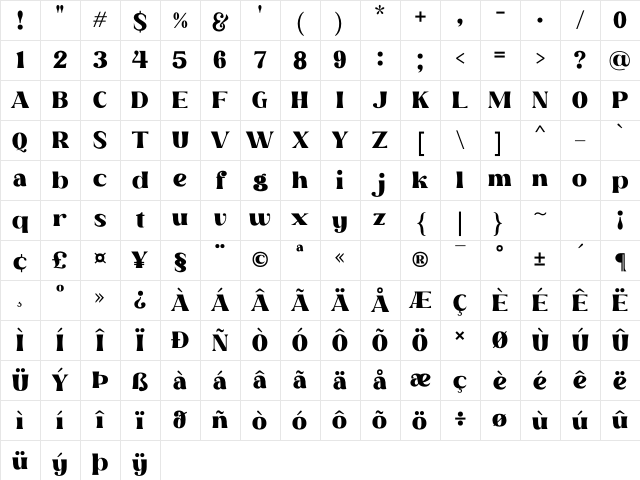
Beach Lombok Regular Free Font
Beach Lombok Regular
Foundry: Letterena Studios
Designer: Heru Utama Putra
Design Context for Beach Lombok
Beach Lombok is a composed and adaptable typeface that performs quietly and consistently across a wide range of design contexts.